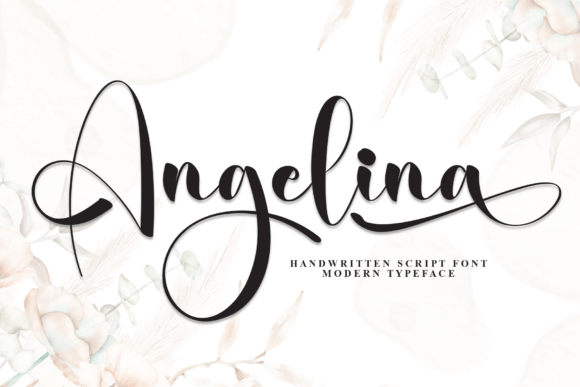
The Quest for the Perfect Font: Discovering Angelina
I still remember the design project that led me to discover the beautiful Angelina Font. I was working on a wedding invitation design, and I just couldn’t find the right font to capture the elegance and charm of the occasion. The client wanted something that felt personal, yet sophisticated. After hours of scrolling through font libraries, I stumbled upon Angelina, and it was love at first sight! ✨
A Beautiful Handwritten Font
Angelina is a stunning handwritten font that combines bold and thin lines, creating a unique and charming effect. Its elegant style makes it perfect for invitations, quotes, and creative designs. The mix of thick and thin strokes adds a touch of personality, giving your text a warm and inviting feel.
- 💫 Elegant and sophisticated, perfect for high-end designs
- ✅ Easy to read, even in smaller sizes
- 🎨 Versatile and works well with various design styles
- 💬 Unique blend of bold and thin lines adds character to your text
- ⚠️ Limited use in very formal or traditional designs, as it may come across as too whimsical
- 🤔 May require some manual kerning for optimal results
The Story Behind Angelina
Angelina was designed by a talented type designer who wanted to create a font that captured the essence of handwritten elegance. Inspired by traditional calligraphy and modern digital design, Angelina was born. Its unique blend of bold and thin lines makes it perfect for designers looking for a font that adds a touch of personality to their work.
Q: Is Angelina suitable for body text?
While Angelina is beautiful, it’s best suited for headlines, titles, and short paragraphs. For body text, you may want to choose a more traditional font.